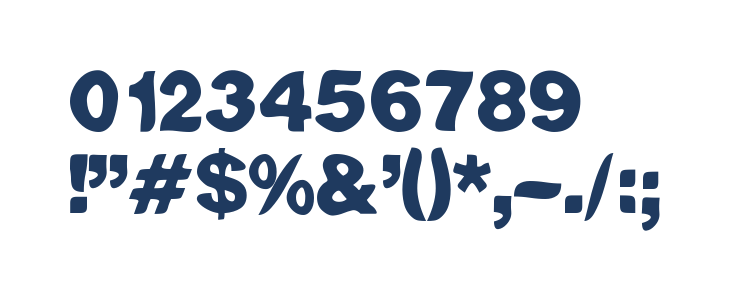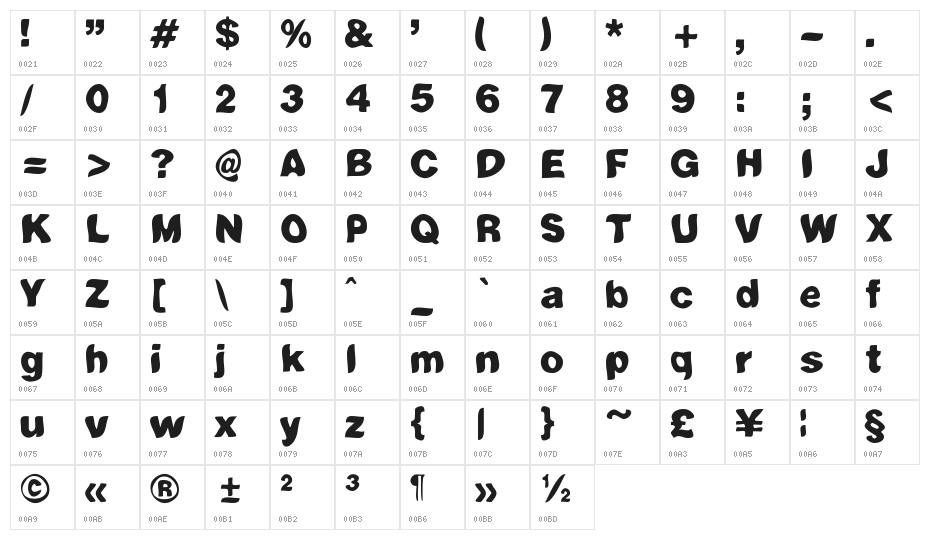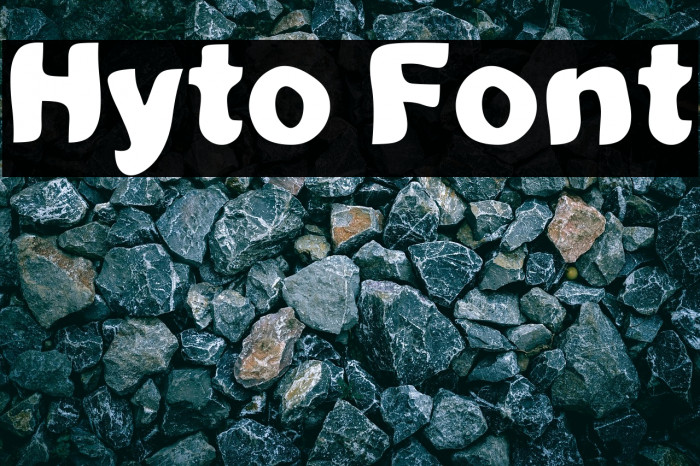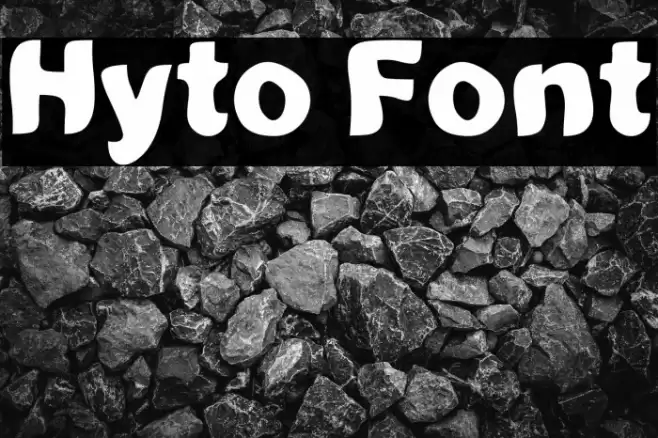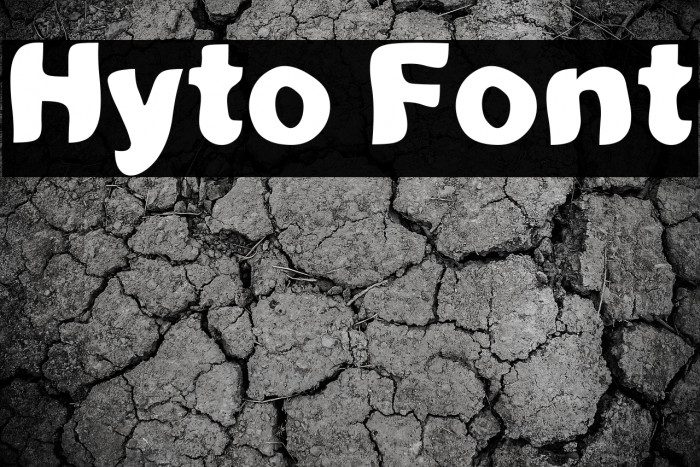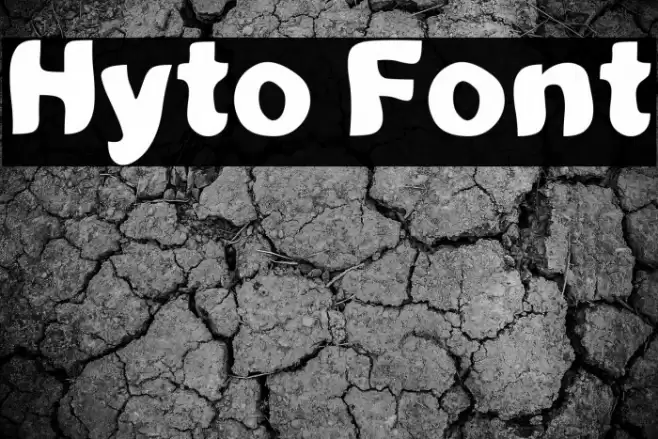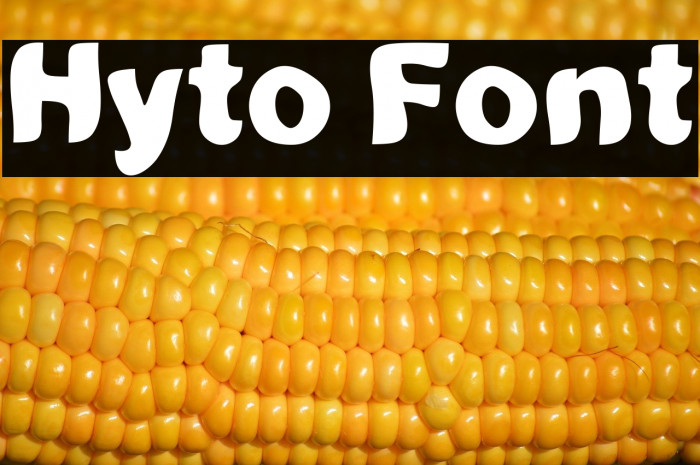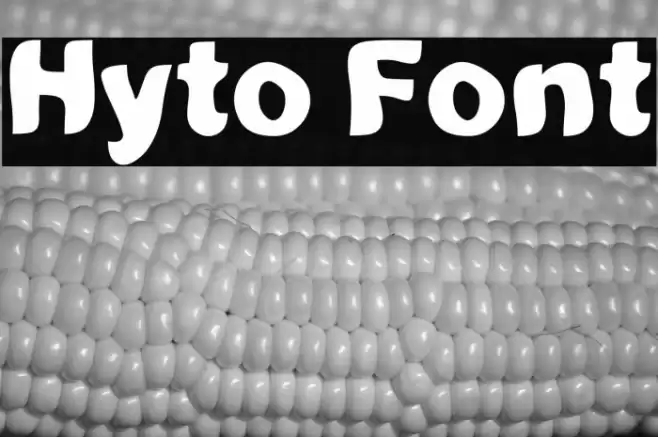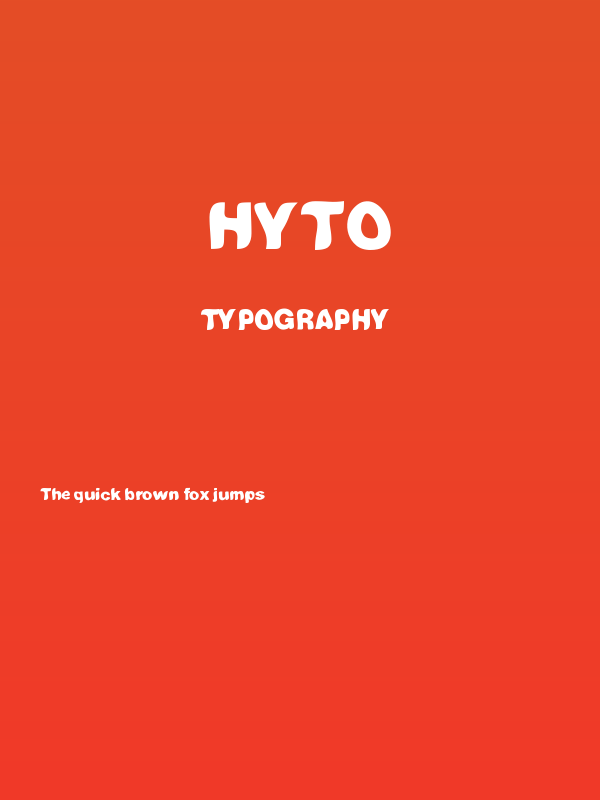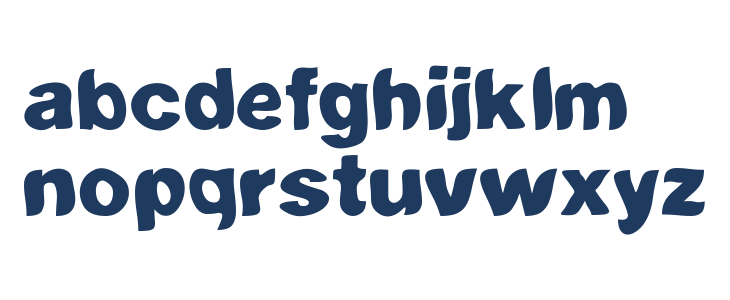
Hyto Font
Hyto Description
This font features a bold and playful style, characterized by its thick, rounded strokes and slightly irregular shapes. The letters have a whimsical, almost cartoonish appearance, making them stand out with a friendly and approachable vibe. The uppercase and lowercase letters maintain a consistent weight, contributing to a cohesive look. The numbers and special characters follow the same design principles, ensuring uniformity across all glyphs. This font's unique style makes it ideal for projects that require a touch of fun and creativity.